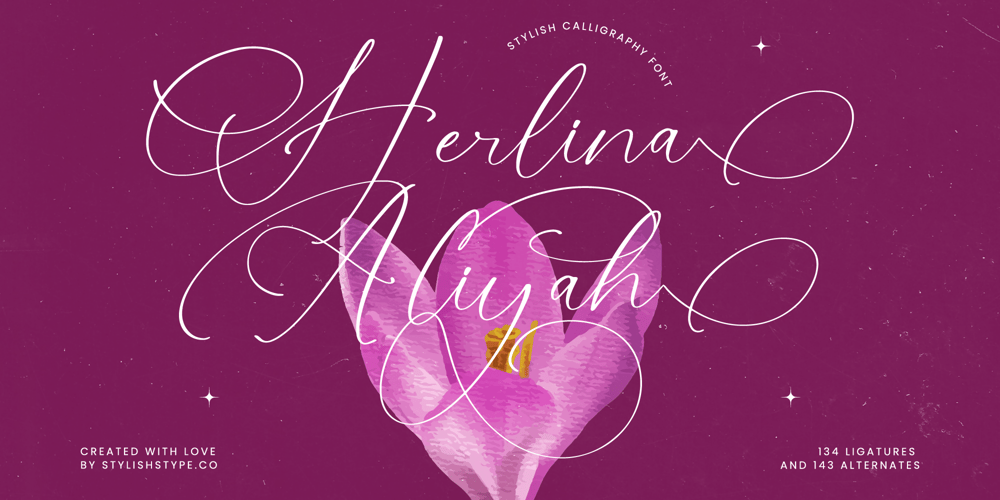
Herlina Aliyah Font Family was designed by Heru Utama Putra and published by Stylishtype Studio. Herlina Aliyah contains 2 styles and family package options. Herlina Aliyah – Stylish Calligraphy Font , from Stylishtype, Suitable for any projects such as: logos, branding projects, homeware designs, product packaging, mugs, quotes, posters, shopping bags, t-shirts, book covers, name card, invitation cards, greeting cards, label, photography, watermark, special events, and all your other luxury and beautiful projects that need a Luxury Script taste.